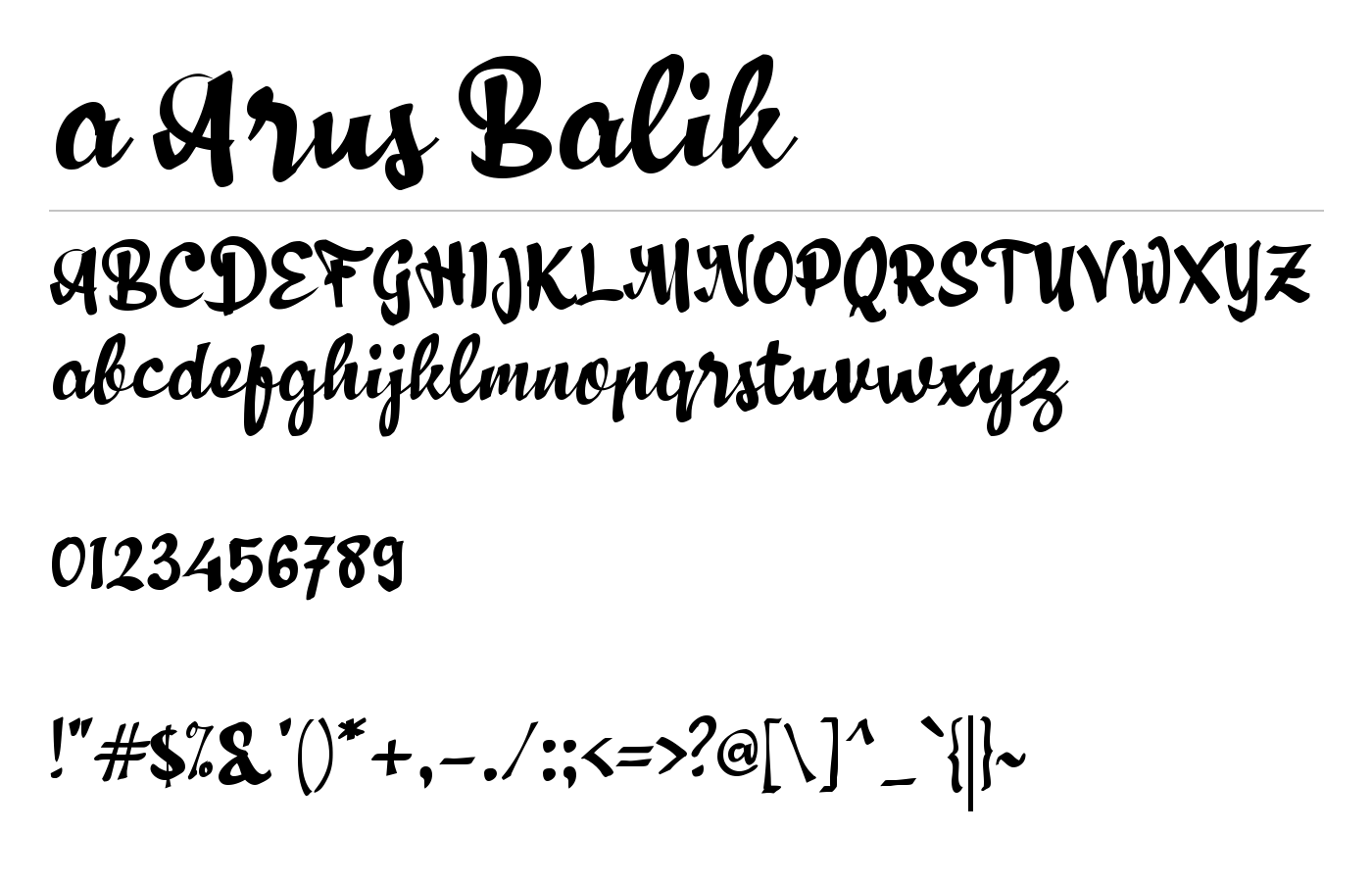
Arus Balik is a bold and lively script font that combines playful cursive shapes with a touch of vintage charm. Its rounded, flowing letterforms and distinctive character details give it an energetic yet approachable personality, making it ideal for creative branding, posters, and eye-catching headlines. This font works well where a sense of hand-crafted style and spirited expression is desired.
a Arus Balik Font
About a Arus Balik Font